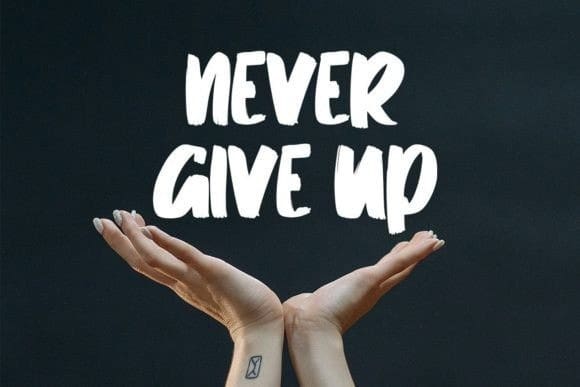
Fourier Brush Font
Fourier Brush Font is a modern and brushed handwritten font crafted to give your headlines and logotype projects a stylish touch. This font reads as strong, confident, and dynamic and can add tons of urban character to your designs.